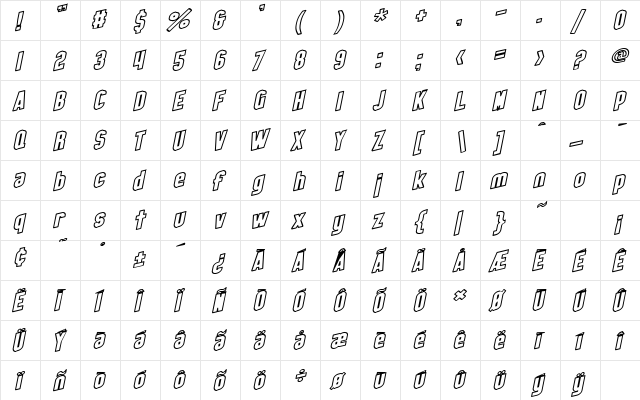
SF Obliquities Outline Bold Font Preview
SF Obliquities Outline Bold
Design Context for SF Obliquities Outline Typeface
SF Obliquities Outline brings ornamental detail and strong personality to headlines and identities, where visual impact matters more than quiet functionality. The heavy weight commands attention and anchors typographic hierarchies.
Font Pairing: Pair with a clean neutral sans-serif for body copy to let SF Obliquities Outline's character lead without overwhelming the composition.
Pro Tip: Treat SF Obliquities Outline as the centrepiece of your typographic hierarchy. One strong heading set in a decorative face can carry an entire layout.